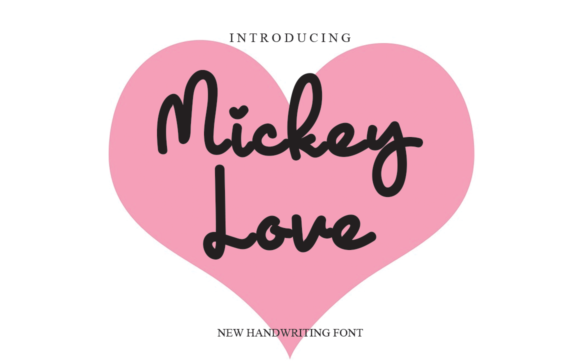
Unleash the charm and affection with Mickey Love Font - a captivating script typeface designed to evoke heartfelt emotions and bring your creative visions to life. Step into a world of romance, where words dance with elegance and grace, leaving an everlasting impression.
Express your love in a way that resonates, whether it's through heartfelt letters, enchanting invitations, or stunning DIY projects. Mickey Love Font's playful and amiable character makes it the perfect choice for adding a touch of whimsy and charm to your designs.
With its free-flowing strokes and beautiful curves, this font captures the essence of handwritten notes, evoking a sense of intimacy and personalization. Turn your words into works of art, whether you're crafting a love letter, designing a wedding invitation, or creating a personalized gift.
Mickey Love Font is not just a font; it's a vessel for expressing emotions, a key to unlocking the heart. Its versatility extends beyond romantic endeavors, making it suitable for a wide range of creative projects. Whether you're a designer, crafter, or simply someone who appreciates beauty, Mickey Love Font is your gateway to artistic expression.
Join the creative revolution and let Mickey Love Font guide you on a journey of love, laughter, and heartfelt connections. Embrace the beauty of handwritten charm and transform your designs into captivating expressions of affection.